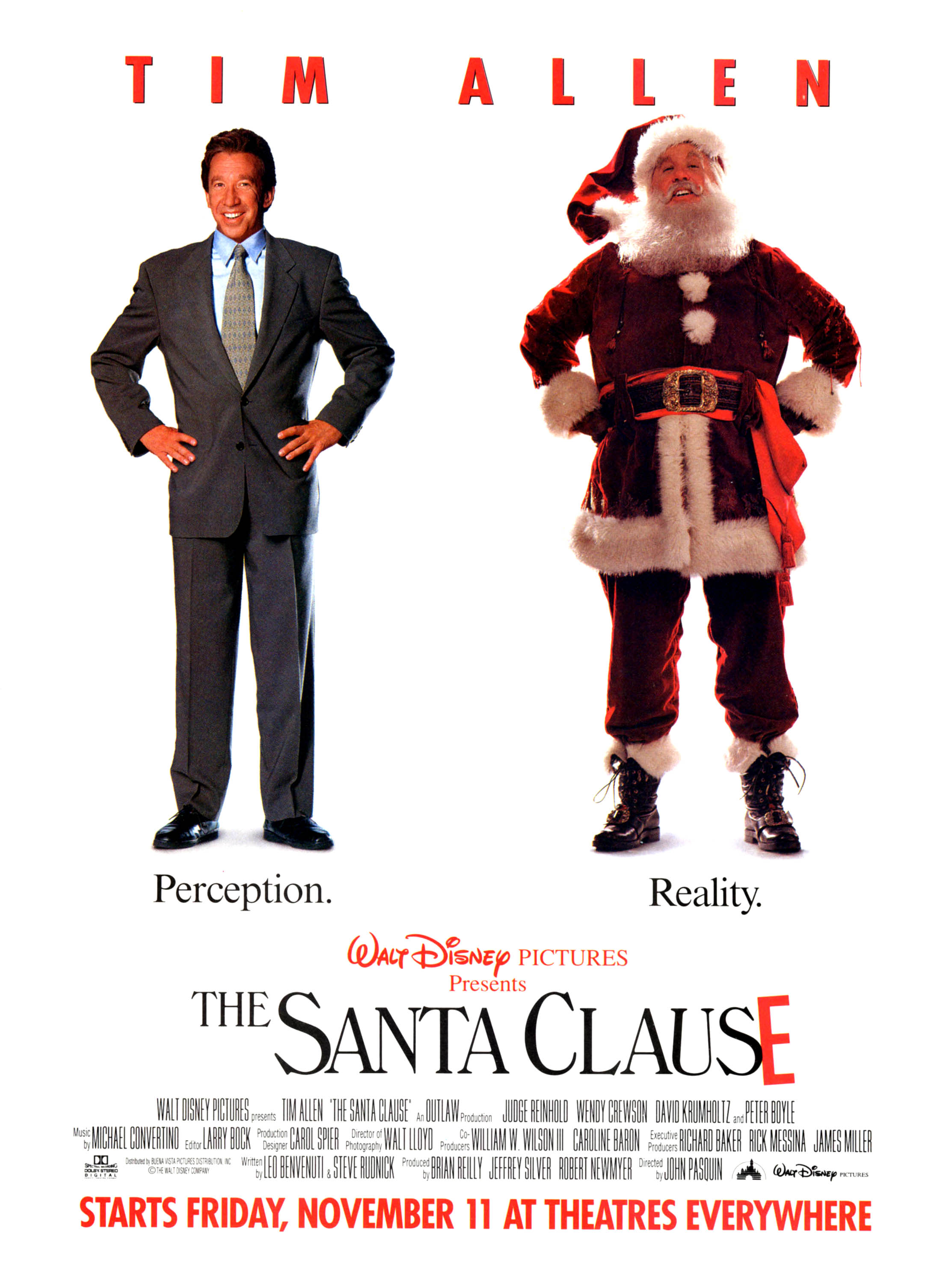
The Santa Clause Font
ComedyThe Santa Clause is a 1994 Christmas comedy film directed by John Pasquin, starring Tim Allen as Scott Calvin, a man who accidentally causes Santa Claus to fall off his roof on Christmas Eve and finds himself magically recruited to take his place as the new Santa.
The film Santa Clause title on the poster is probably set in Windsor Light Condensed with the exception of the letter ''E”. The title lettering can be replicated by downloading a free font called Windsor Light Cond by Castcraft Software from the Fonts Used Section. In the opening title, Emil J. Klumpp's script font called Murray Hill is used.